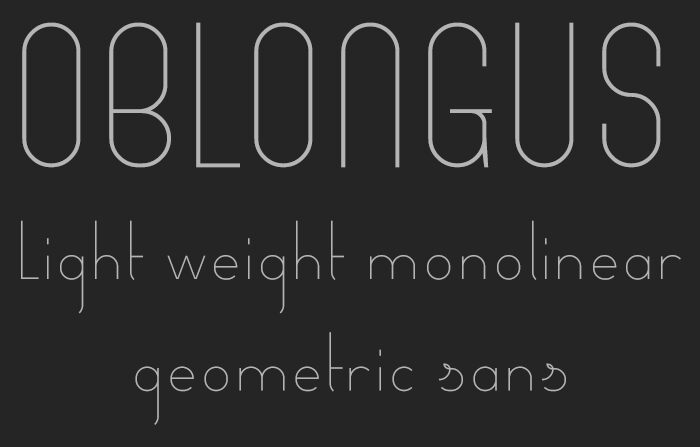
STF Oblongus, designed by Ron Ruedisueli, is an extraordinary sans serif font that exudes elegance and minimalism. With its extra-light weight and extra-condensed width, this font showcases a sleek and streamlined aesthetic that is perfect for modern and sophisticated projects. Its monolinear geometric structure adds a touch of simplicity and versatility to any design.
STF Oblongus is an ideal choice for branding materials, editorial layouts, website headers, and contemporary packaging designs. Let this font elevate your creations with its clean lines and refined appeal.
Designer description: OBLONGUS - Modern light weight geometric sans
Light weight monolinear geometric sans.
One of the most striking features is it's overall well ventilated, light weight and spacious appearence. Some other key features are the glyph's elongated ascenders and descenders. These give the font a somewhat condensed and stretched look. An additional side effect of this is the extra empty vertical space above and bellow a line of text. Contributing even some more to the already ventilated character of the design.
Another key feature are the stylish rounded forms and novel long spurs. I tried to find elegance in it's simplicity, the decorative elements, turns and twists were all done in a very gentle but clearly present manner. All working together these elements give the font a very welcoming, friendly and laid-back vibe. Extra's, such as glyph alternatives will help spicing things up even a bit more.
So, while trying to remain simplistic in nature the font does have some nice stylistic appeal for sure.
▪ Basic-Latin, punctuation & symbols
▪ Lining & non-lining (oldstyle) numerals
▪ Glyph alternatives
▪ Partial kerning
Basic font created
Changed lowecase 'w' with a wider version
Made cursive style lowercase 's' & 'tailed z' glyphs as default style
Partial kerning applied
Added multiple sets of numerals styles
- Lining (default style)
- Non-Lining (Oldstyle)
- Double Struck
(Slight different, extra decorative, more leaning towards classic style)
Included random stylistic glyph alternates, special characters & ligatures
- Additional extra characters will follow next update